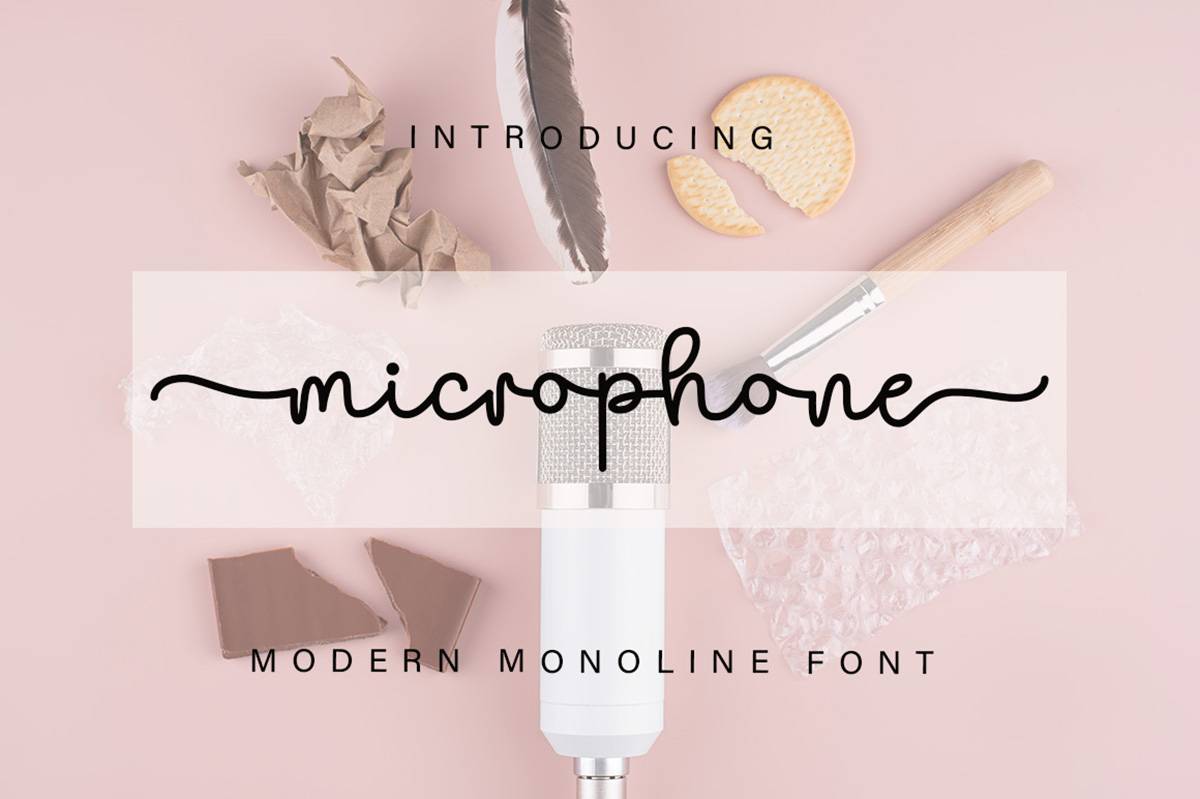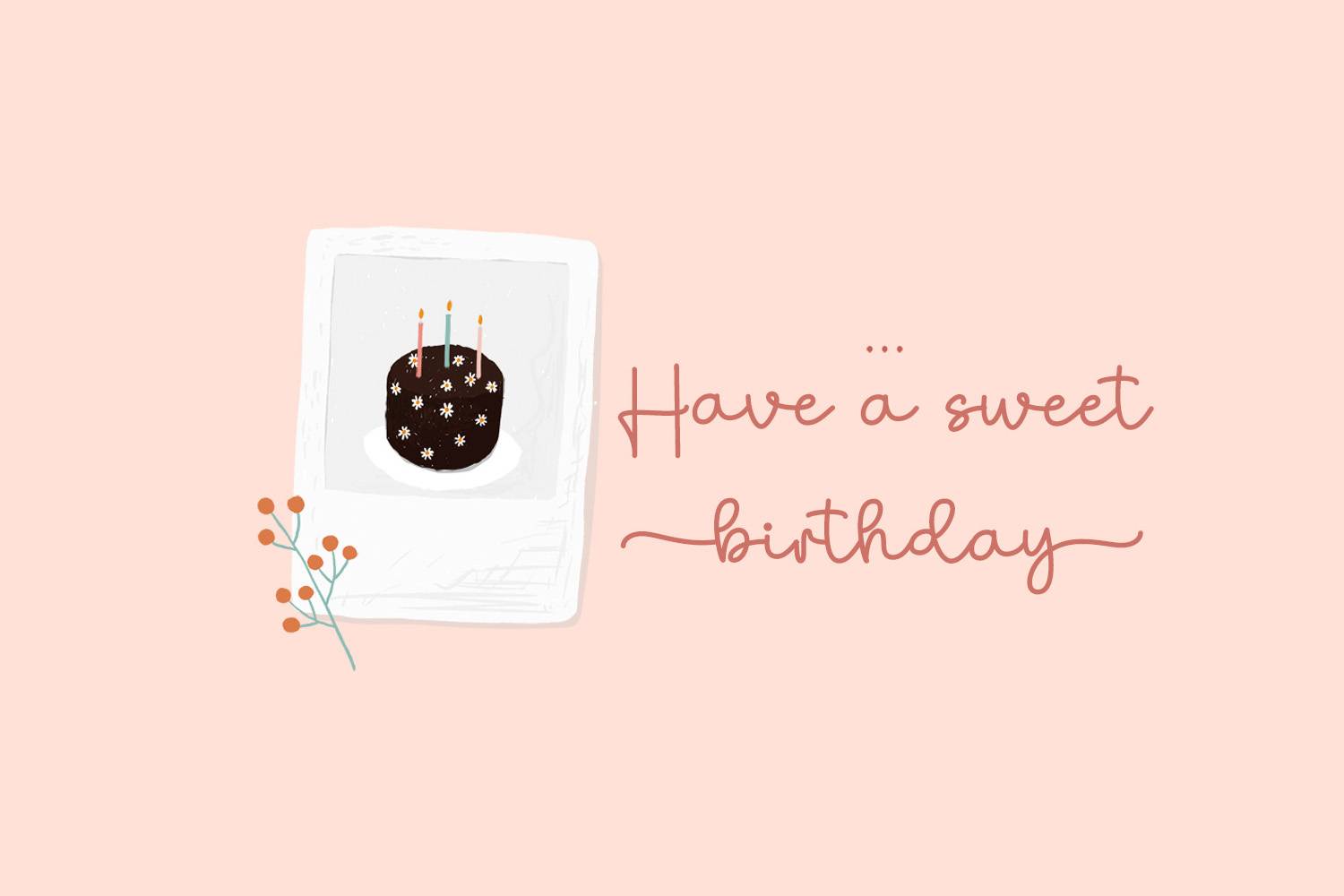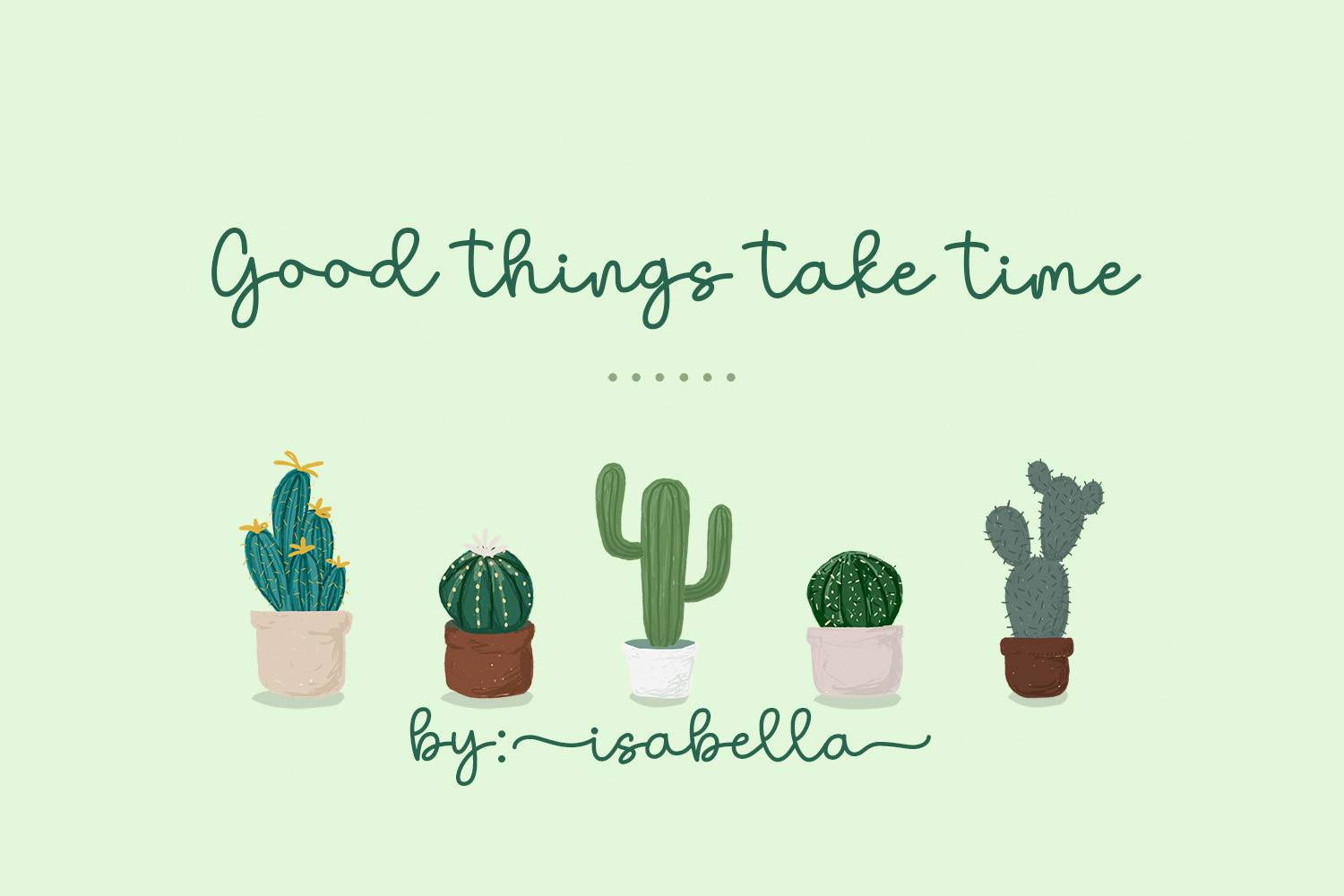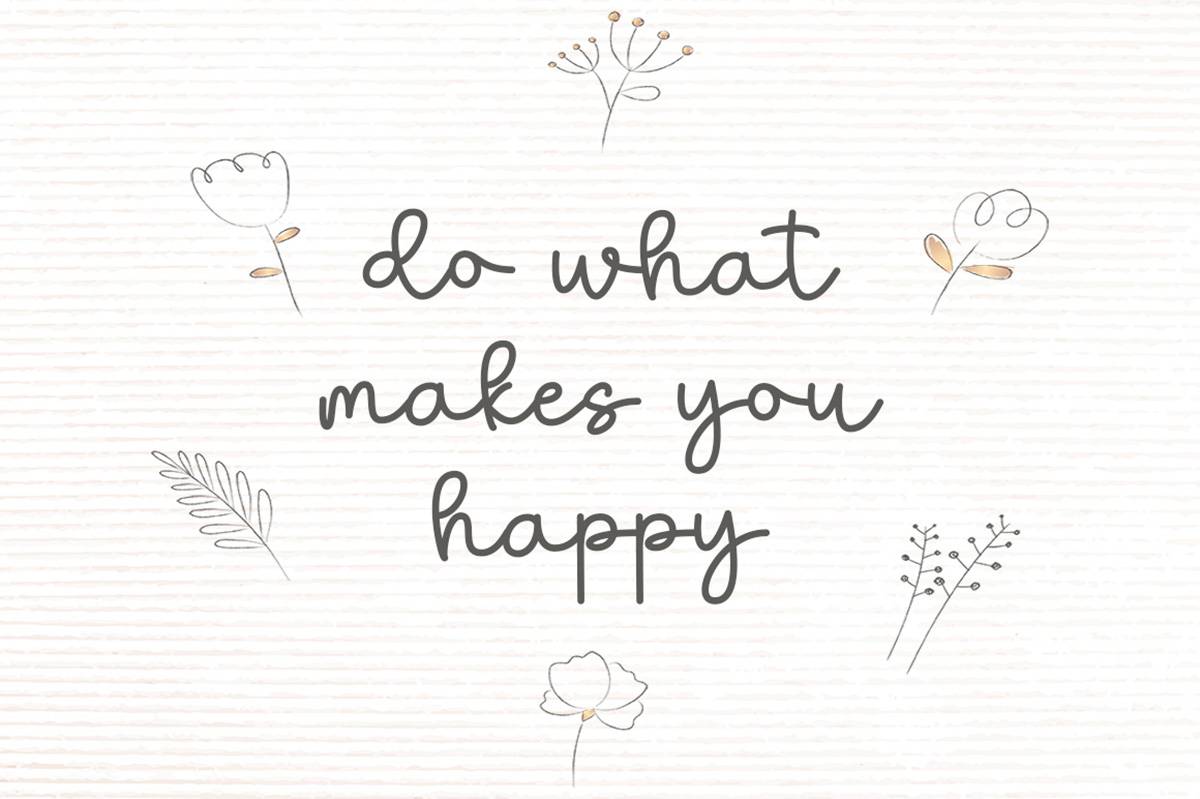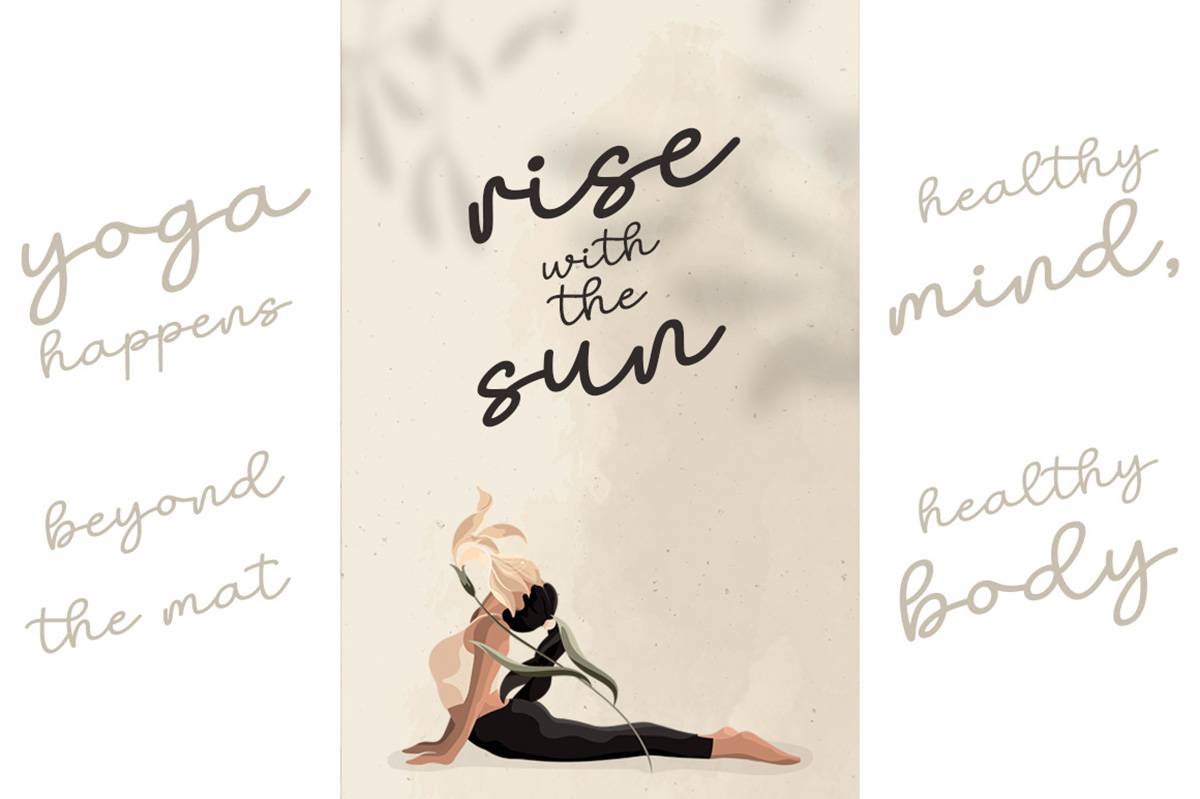
Microphone Font is a playful and elegant handwritten script with a light weight and airy, casual feel. Its smooth, flowing lines and looping letterforms give it a warm, approachable personality perfect for creative, friendly designs. Ideal for logos, invitations, and branding that seeks a personal, charming touch.
Microphone Font
About Microphone Font
| Font family | Microphone Font |
| Designer | Wahyudi |